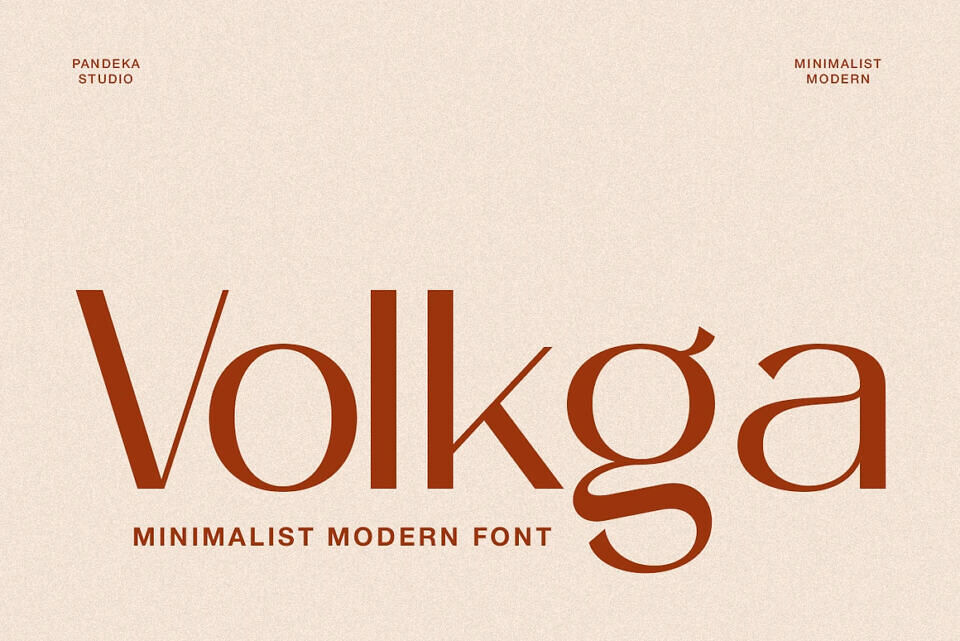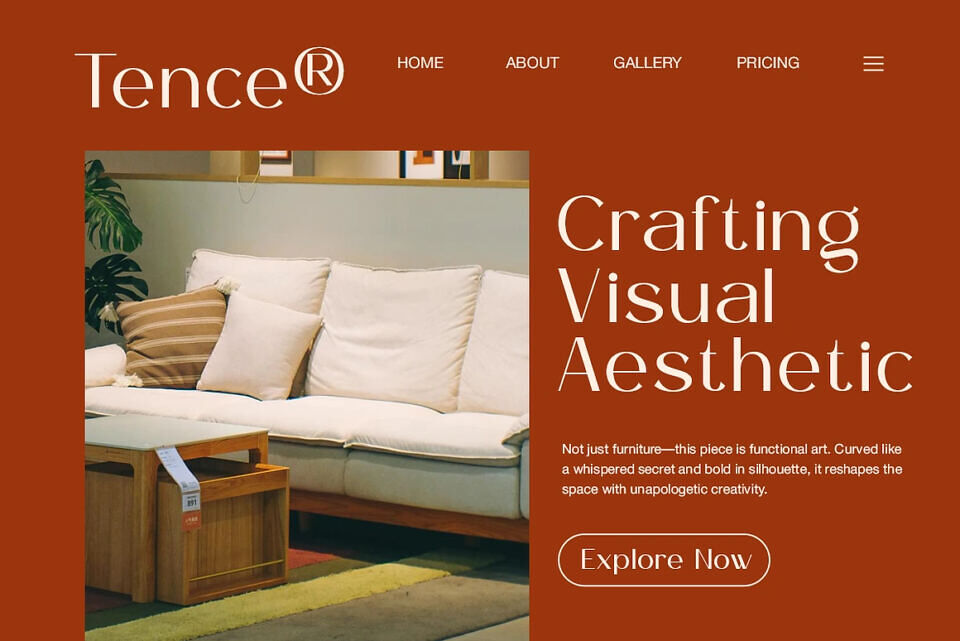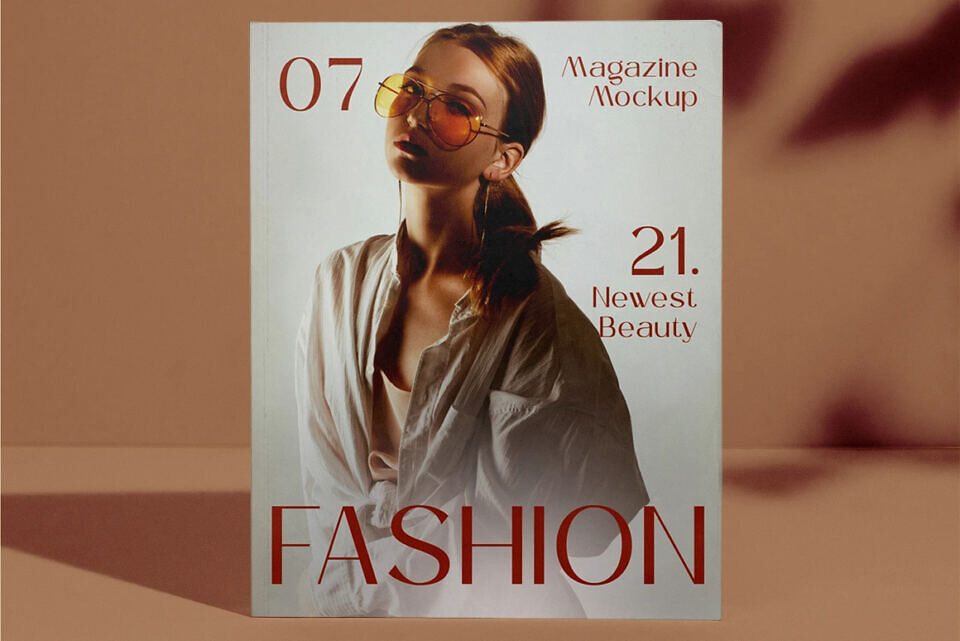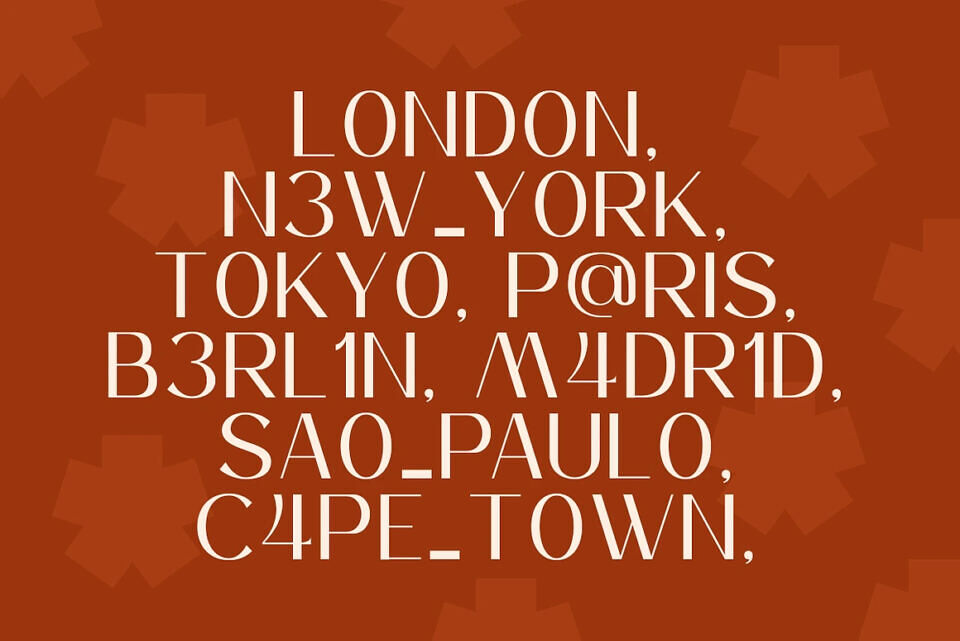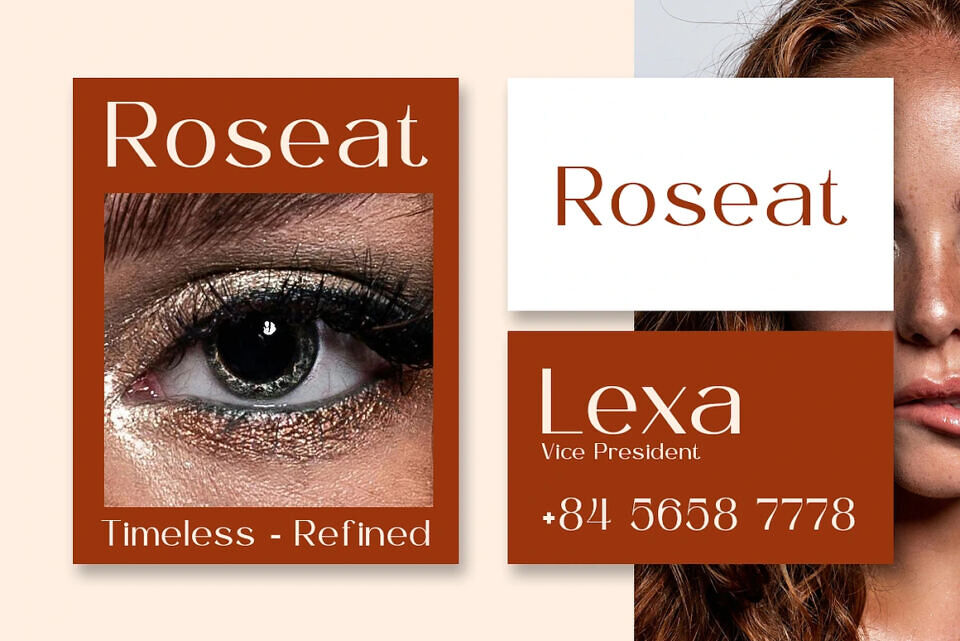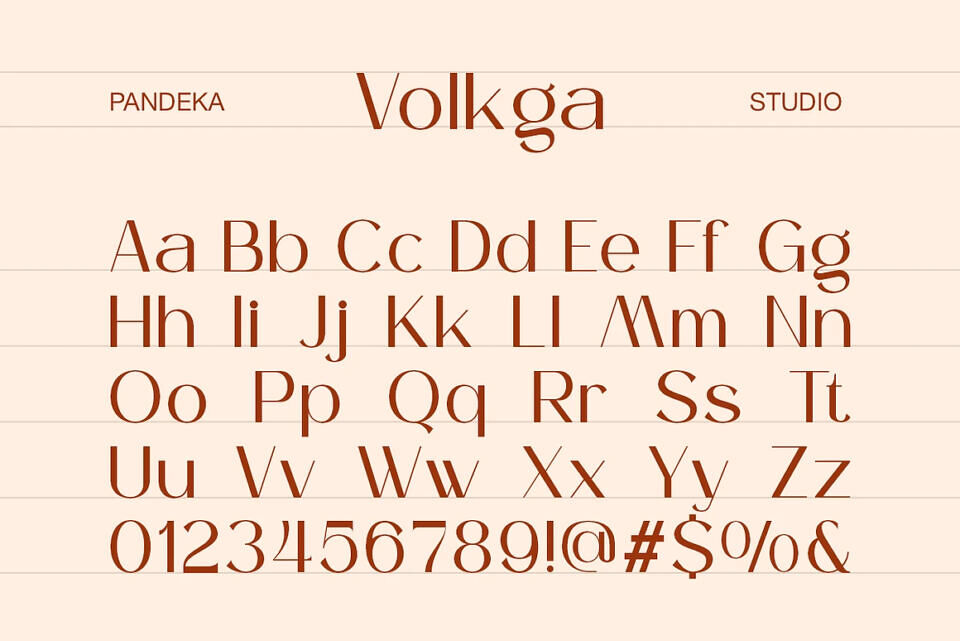
Volkga Font
Volkga is a minimalist sans serif font with a clean, modern look — perfect for skincare, beauty, and lifestyle branding. Its regular style features simple geometric forms and balanced proportions, giving every design a sense of elegance, clarity, and sophistication.
Ideal for logos, cosmetic packaging, product labels, social media, and editorial use, Volkga is a versatile choice for brands that want to project trust, purity, and timeless beauty.